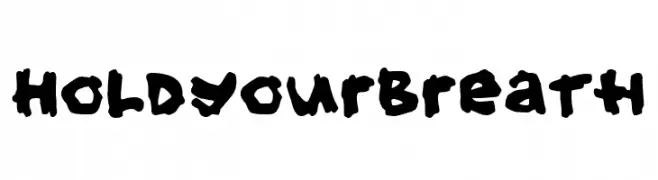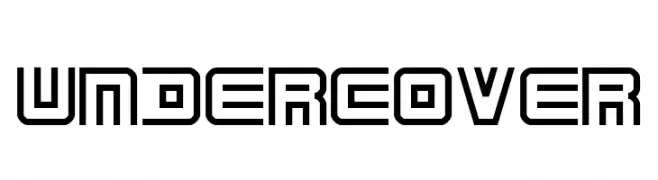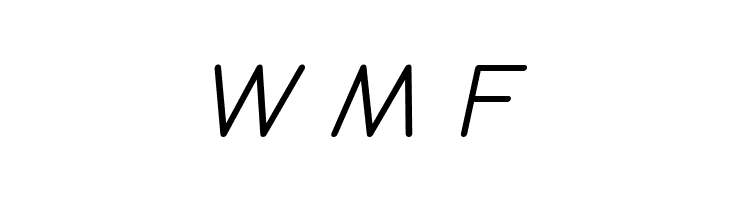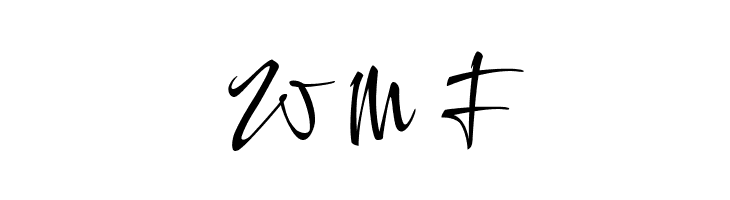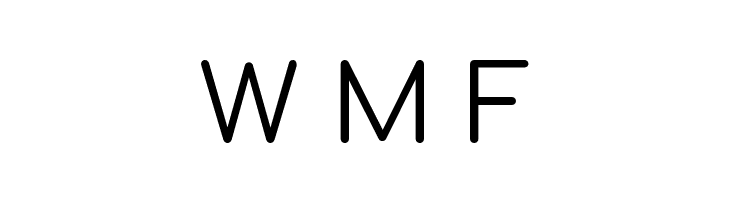
A modern, ultra-thin font with geometric and elongated letterforms.
A playful, rounded font with smooth curves and consistent stroke width.
A modern, geometric font with clean lines and an open feel.
A modern, geometric sans-serif font with consistent stroke width and balanced proportions.
A playful, rounded font with bold, uniform strokes and a friendly appearance.
A bold, hand-drawn font with an expressive and dynamic style.
A playful, handwritten font with a casual and energetic style.
A futuristic, geometric font with bold, double-line characters and tight spacing.
An organic, blob-like font with playful, irregular edges.
A whimsical, decorative font with heart motifs and playful swirls.